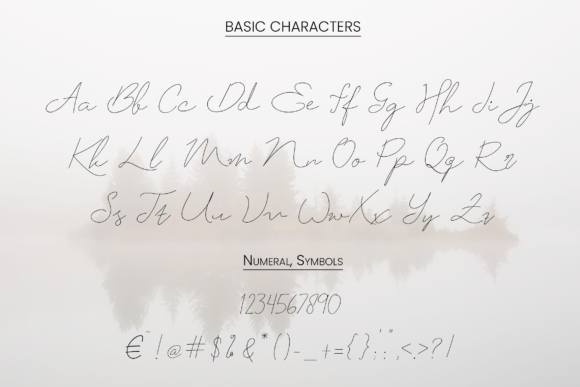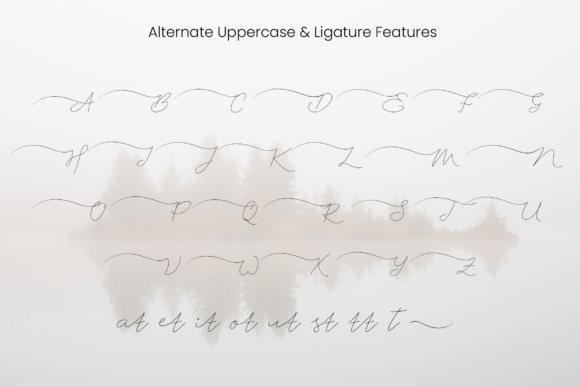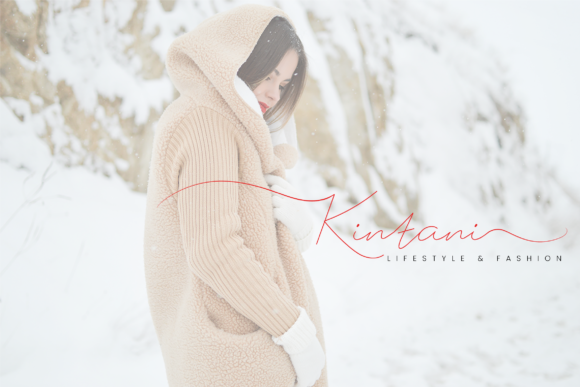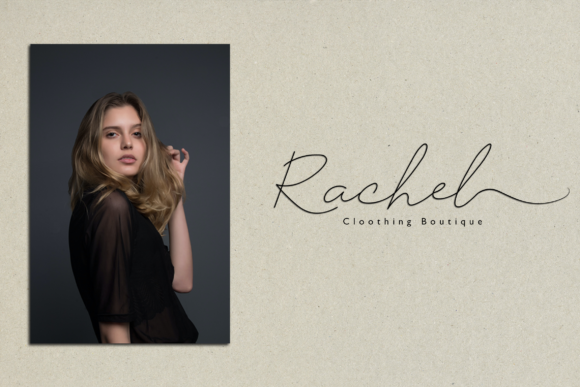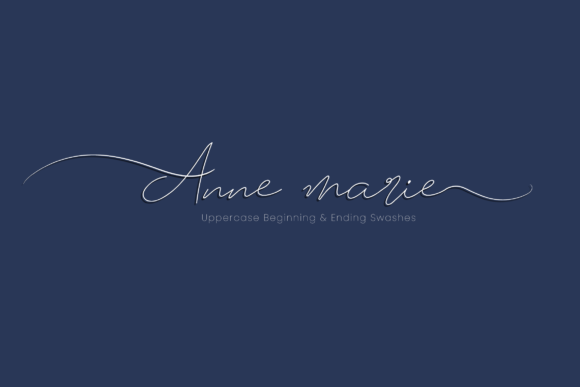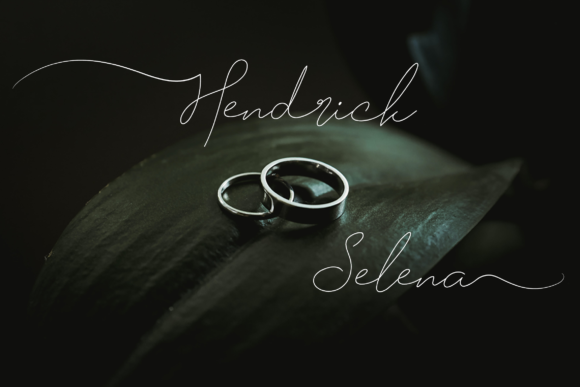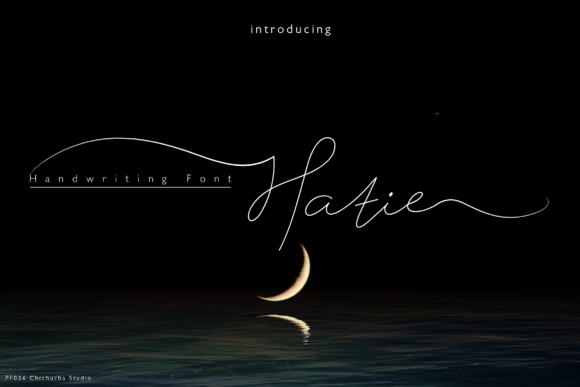
Introducing Hatie Font: Elevate Your Designs with Luxury and Elegance
Are you a designer or crafter looking for a font that exudes luxury and sophistication? Look no further than Hatie Font, a stunning script font that is sure to add a touch of elegance to any design project. With its slim and delicate appearance, Hatie Font is perfect for creating high-end designs that demand attention.
The Beauty of Hatie Font
Hatie Font is a gorgeous and delicate looking script font that is designed to make your designs stand out. Its slim lines and elegant curves create a sense of luxury and refinement, making it perfect for a wide range of design projects, from branding and packaging to wedding invitations and stationery.
One of the best things about Hatie Font is that it is PUA (Private Use Area) encoded, which means that you can access all of the amazing glyphs and ligatures with ease. This makes it simple to create beautiful and intricate designs without having to spend hours searching for the right characters.
PUA encoding is a system that allows font designers to include additional characters and glyphs in their fonts, beyond the standard Unicode characters. This means that Hatie Font includes a wide range of alternative characters, ligatures, and swashes that you can use to add variety and interest to your designs.
Features of Hatie Font
• Slim and delicate appearance: Hatie Font has a slim and elegant appearance that is perfect for creating high-end designs.
• PUA encoded: With PUA encoding, you can access all of the amazing glyphs and ligatures with ease.
• Luxury and sophisticated feel: Hatie Font exudes luxury and sophistication, making it perfect for high-end design projects.
• Wide range of uses: Hatie Font is versatile and can be used for a wide range of design projects, from branding and packaging to wedding invitations and stationery.
Tips and Tricks for Getting the Most Out of Hatie Font
• Experiment with different sizes and styles: Hatie Font looks great in a variety of sizes and styles, so don’t be afraid to experiment and find the look that works best for your design.
• Use the font’s built-in ligatures and swashes: With PUA encoding, you can access a wide range of ligatures and swashes that can add interest and variety to your designs.
• Pair Hatie Font with other fonts: Hatie Font pairs well with a wide range of other fonts, so don’t be afraid to experiment and find the perfect combination for your design.
Hatie Font is a stunning script font that is sure to add a touch of luxury and elegance to any design project. With its slim and delicate appearance, PUA encoding, and wide range of uses, Hatie Font is a must-have for designers and crafters looking to create high-end designs. Whether you’re working on a branding project, creating wedding invitations, or designing packaging, Hatie Font is the perfect choice.